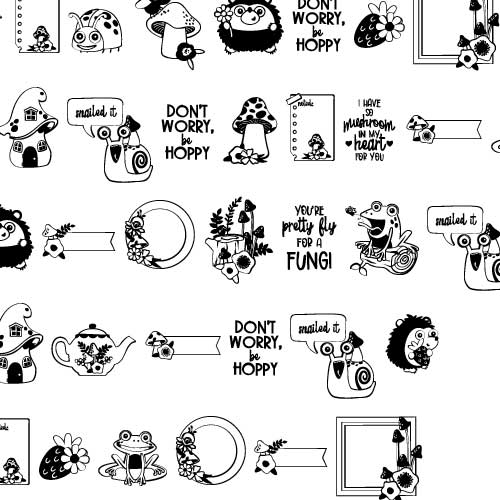
DB Toadstool Tales - DB
This adorable doodlebat font features 26 sweet woodland characters, mushrooms, flowers and spring elements perfect for cards, crafts, gifts, planner stickers, scrap book pages, classrooms and more!